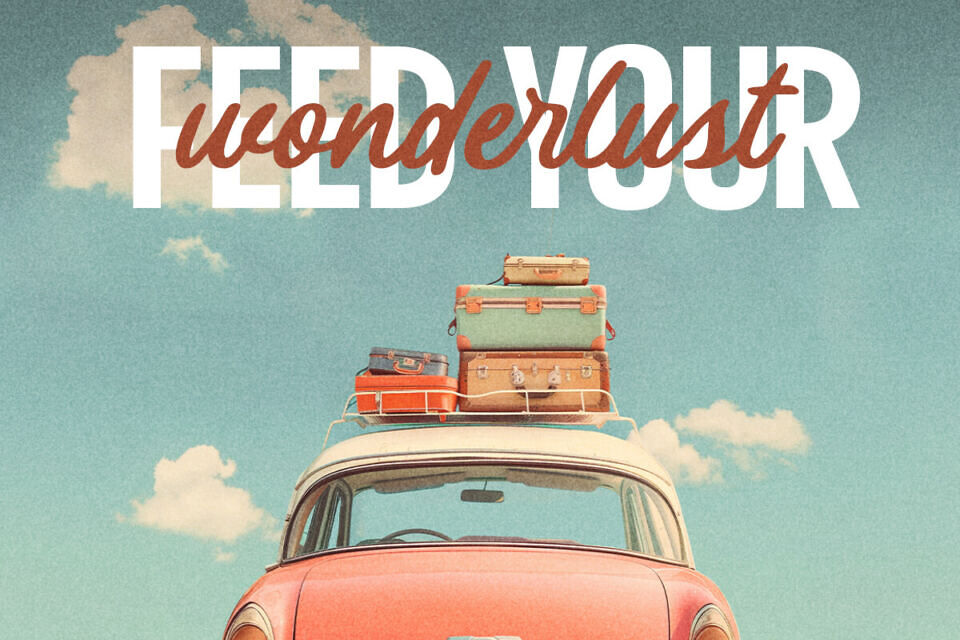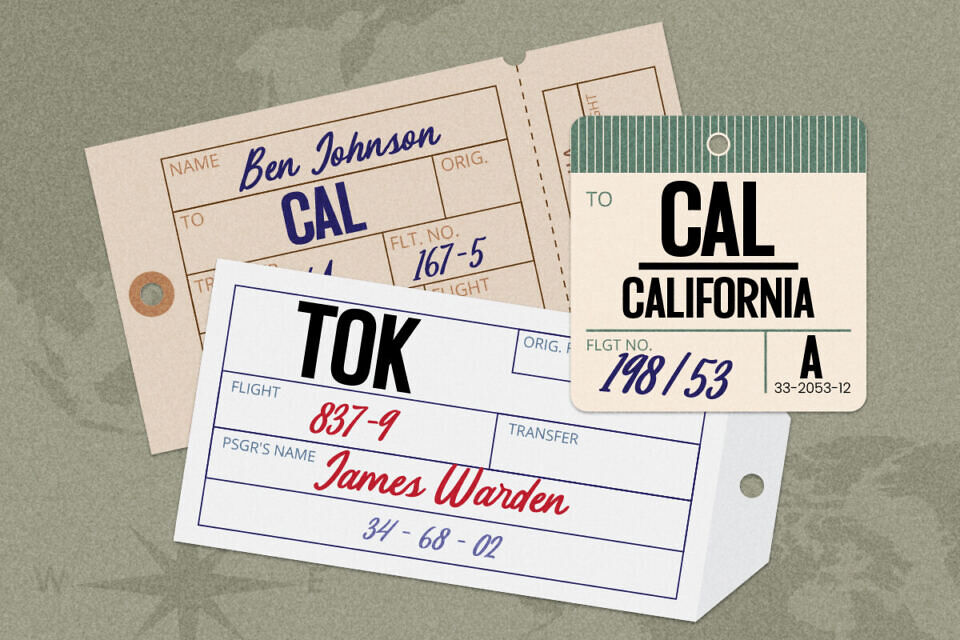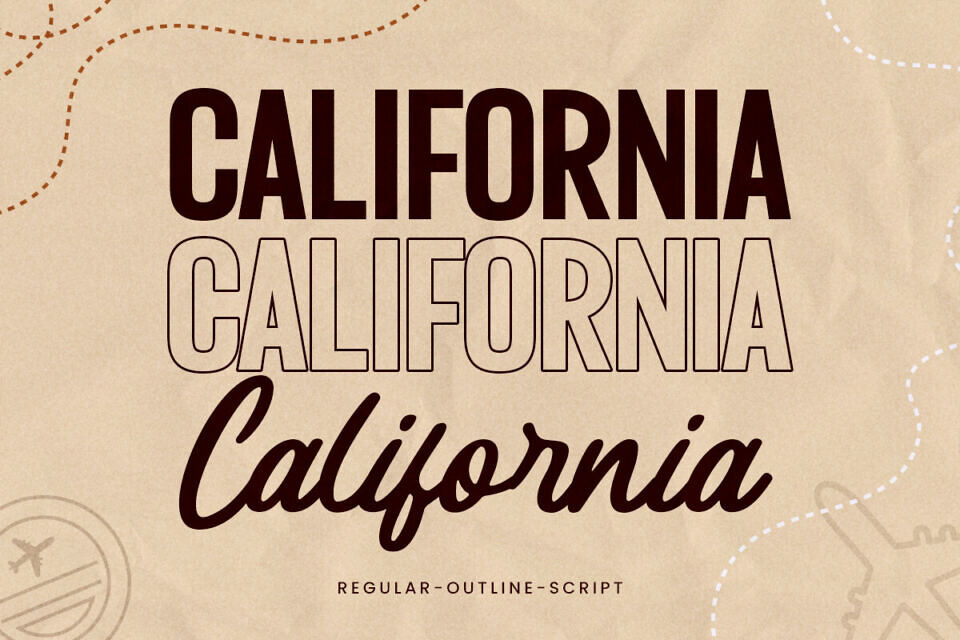
RT Goodneighbor Script Font
Introducing Goodneighbor, a versatile vintage font duo designed to bring a nostalgic charm to your projects. This duo features a beautifully crafted script font paired with a classic sans serif, along with an elegant sans serif outline version.
Perfect for creating eye-catching logos, stylish invitations, retro posters, and timeless packaging, Goodneighbor effortlessly blends the past with the present. Whether you’re aiming for a sophisticated or playful look, this font duo ensures your designs stand out with a touch of vintage flair.
Designed by: Rillatype